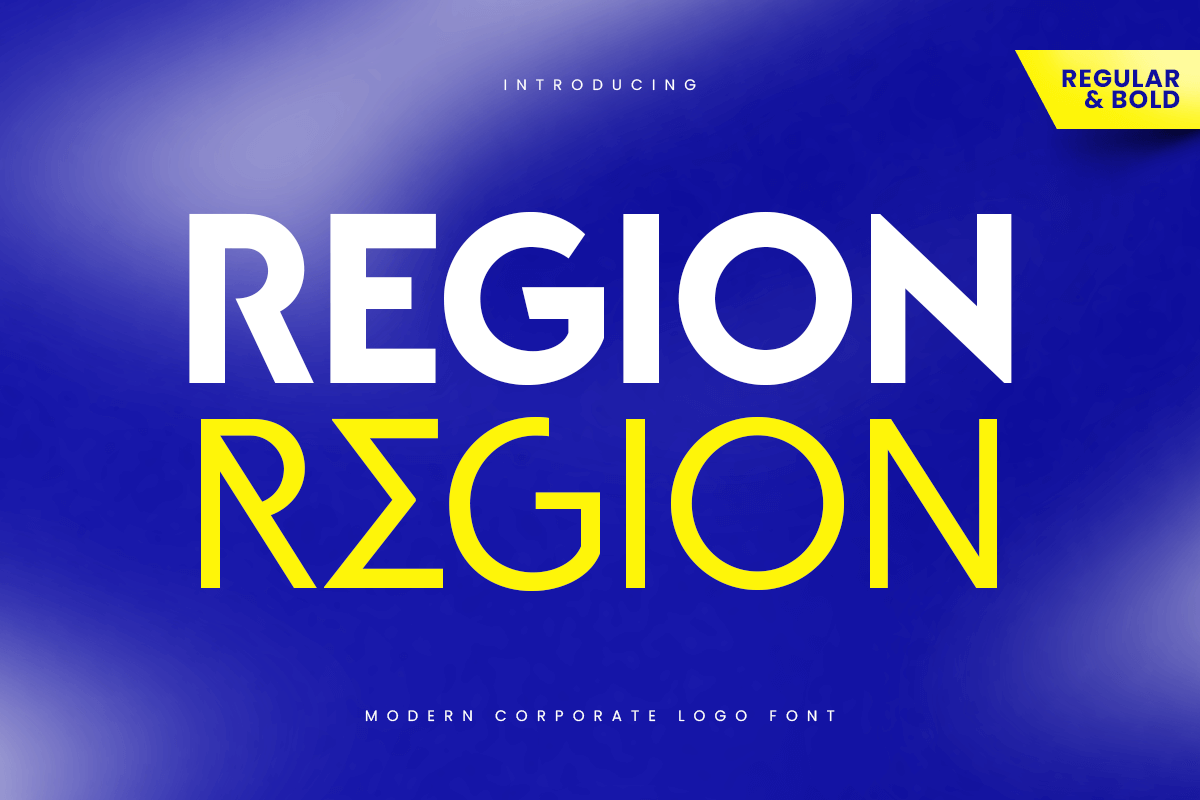
REGION
-Modern Corporate Logo Font
Introducing REGION, the ultimate technology logo font designed for modern and innovative branding. REGION combines sleek aesthetics with cutting-edge design, making it perfect for tech-savvy projects.
Elevate your brand with REGION, a font that embodies the essence of modern technology and innovation. Whether for creating dynamic logos or sleek typography, REGION brings a touch of futurism to all your design projects. Make a bold statement with REGION's high-tech style and impeccable design.